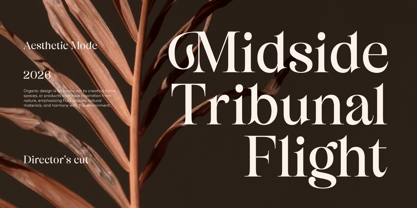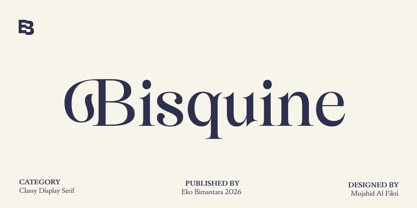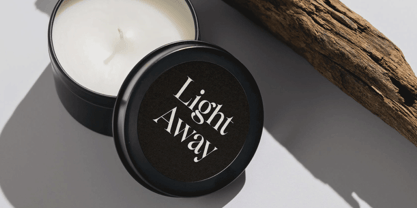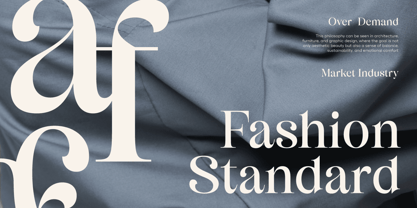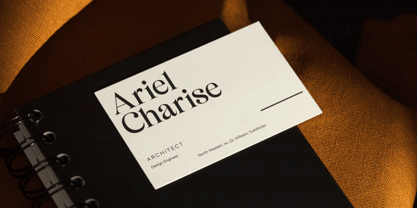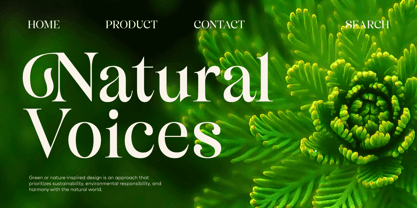
Bisquine
by Eko Bimantara
The Bisquine Font Family was designed by Eko Bimantara, Mujahid Al Fikri and published by Eko Bimantara. Bisquine contains 1 styles. More about this family
Bisquine is an elegant and beautiful display serif font crafted with well-designed letterforms and refined proportions that express sophistication and grace. Enhanced with fancy alternates, it offers decorative flexibility for creating distinctive and stylish typography. Bisquine is ideal for classy branding, feminine designs, web use, headers, titling, and a wide range of creative projects that demand a luxurious and polished visual presence.
Designers: Eko Bimantara, Mujahid Al Fikri
Foundry: Eko Bimantara